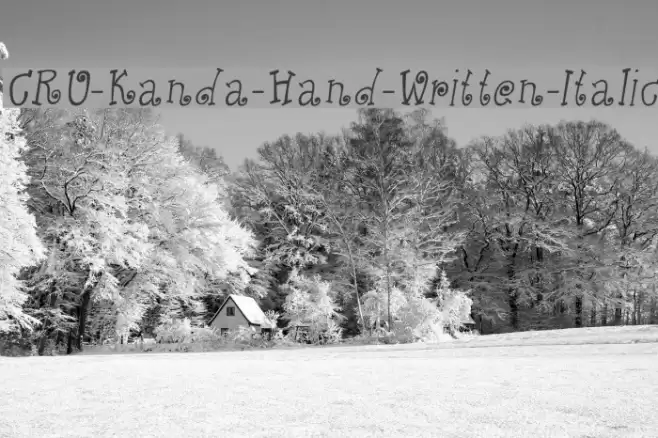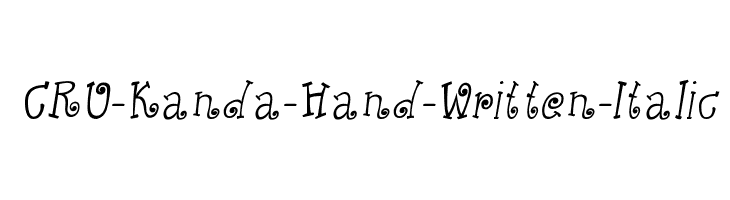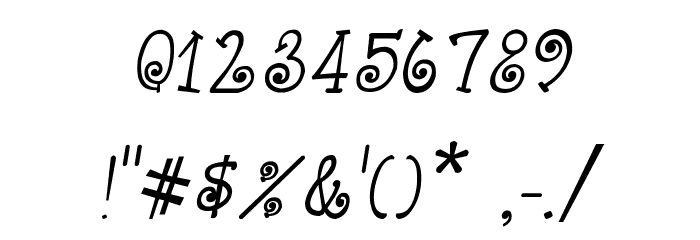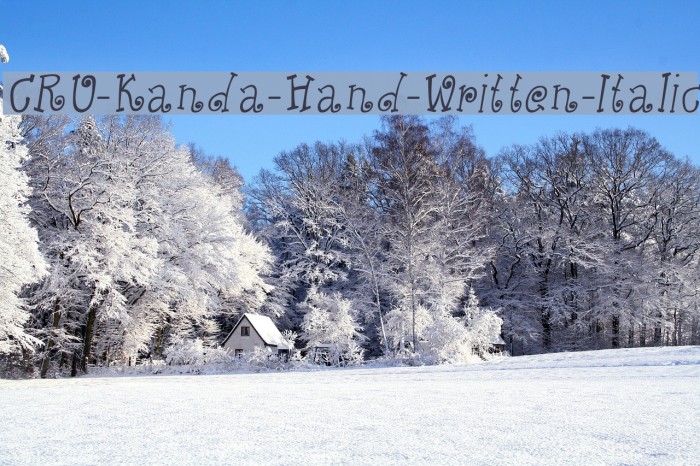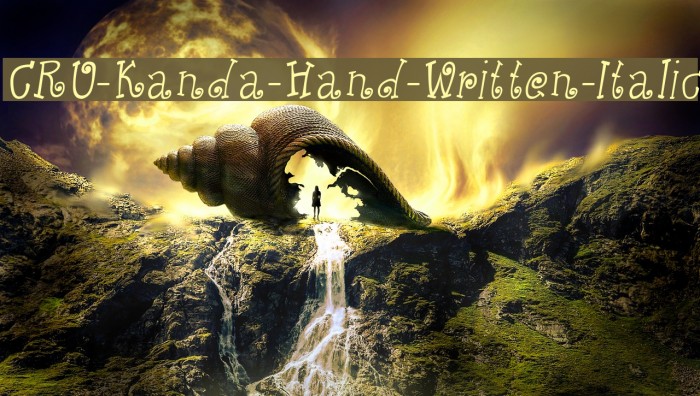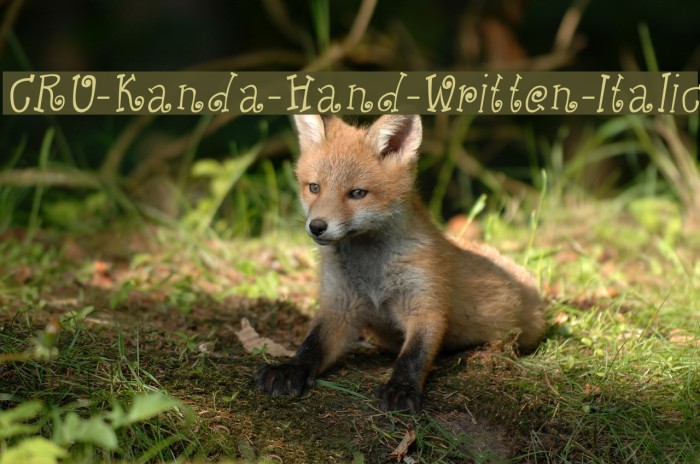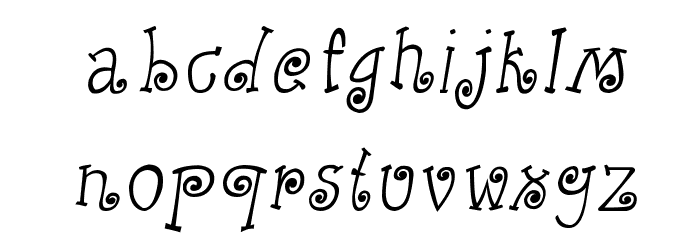
CRU-Kanda-Hand-Written-Italic Font
CRU-Kanda-Hand-Written-Italic Description
This font features a whimsical, hand-drawn style with a playful and artistic flair. The characters are uniquely crafted with swirling and curling elements, giving them a lively and dynamic appearance. The uppercase letters are bold and prominent, while the lowercase letters maintain a consistent flow with a slightly more delicate touch. Numbers and special characters follow the same creative design, ensuring a cohesive look throughout. The font's overall aesthetic is both charming and distinctive, making it suitable for projects that require a touch of creativity and individuality.
A whimsical, hand-drawn font with playful curls and swirls from Uncategorized fonts.
- Proposed Projects: Ideal for greeting cards, children's books, playful branding, and artistic posters.
- Use Case: Logos, Headlines, Artistic projects